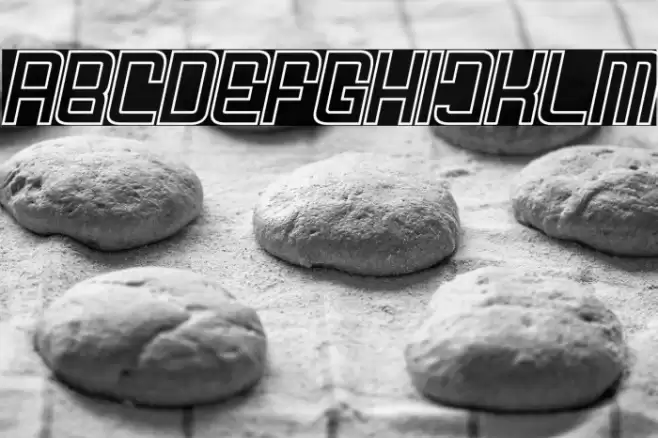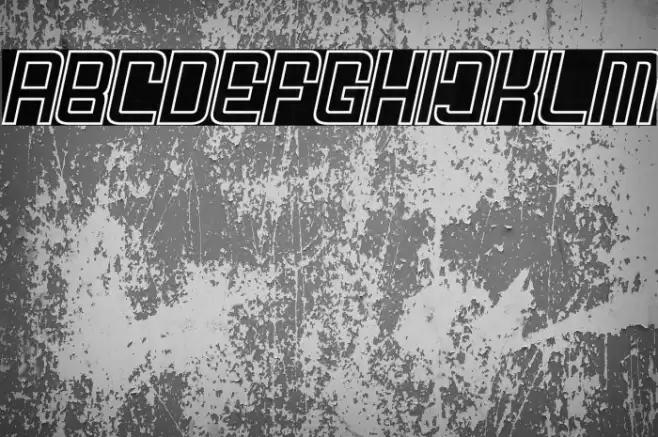
FODECUMBERS THICK ITALIC HOLOW Italic Font
FODECUMBERS THICK ITALIC HOLOW Italic Description
This font features a bold, italicized style with a hollow design, giving it a modern and futuristic appearance. The characters are outlined, creating a three-dimensional effect that is both striking and unique. The uppercase and lowercase letters maintain a consistent slant, enhancing the italic nature of the font. The numbers and special characters follow the same design principles, ensuring uniformity across all glyphs. The font's geometric structure and clean lines make it suitable for projects that require a contemporary and dynamic look.
A bold, italic, hollow font with a modern, futuristic style from Uncategorized fonts.
- Font: FODECUMBERS THICK ITALIC HOLOW Italic
- Proposed Projects: Ideal for branding, posters, digital art, and any project needing a bold, modern aesthetic.